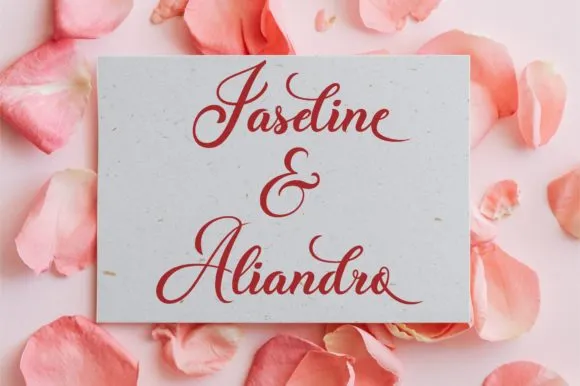
Butterfly Wish Font is an exquisite cursive content textual style with an immaculate style. It brings astounding substitutes and swashes that will encourage your number one undertakings!
This textual style is PUA encoded which implies you can get to all glyphs and swashes effortlessly!